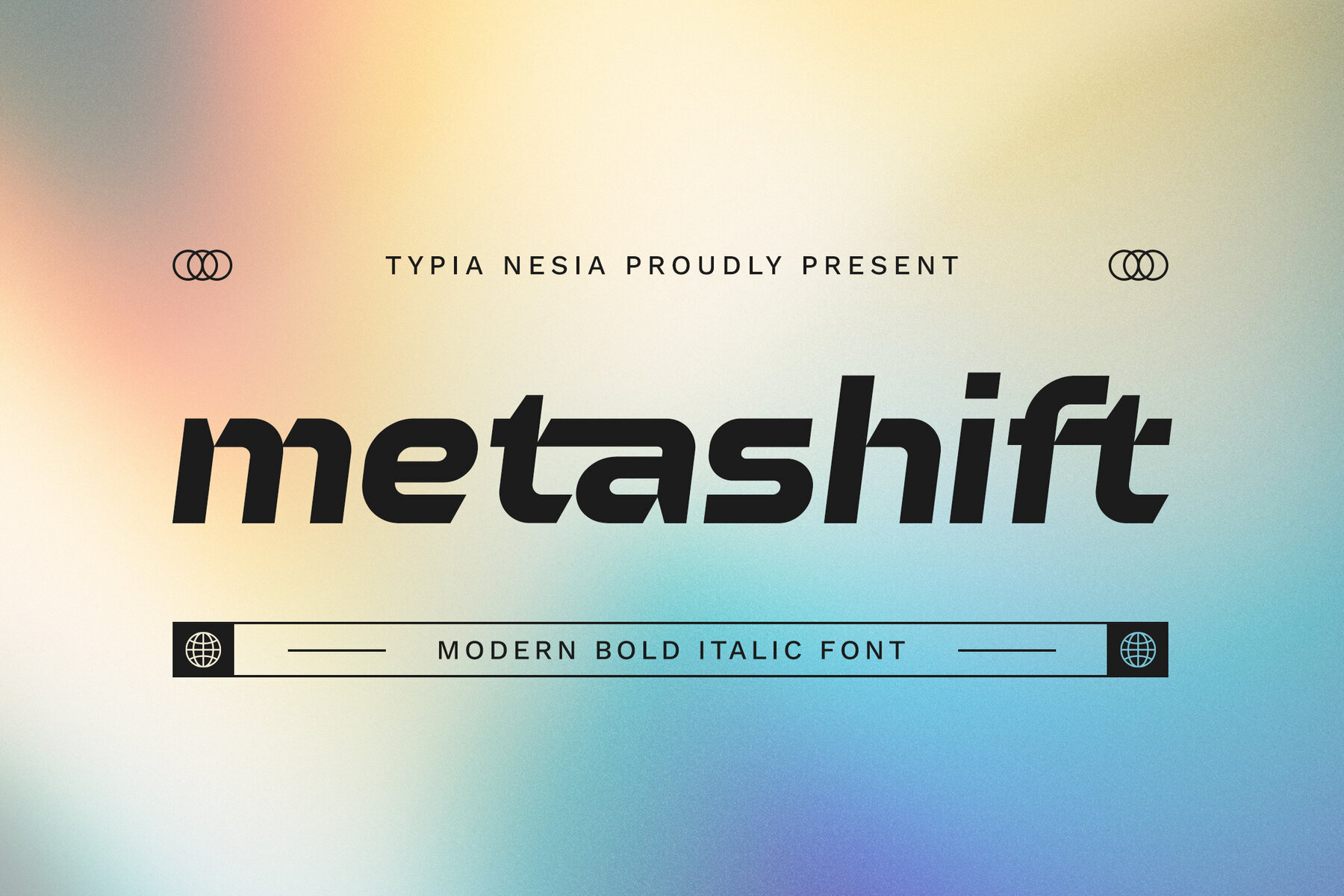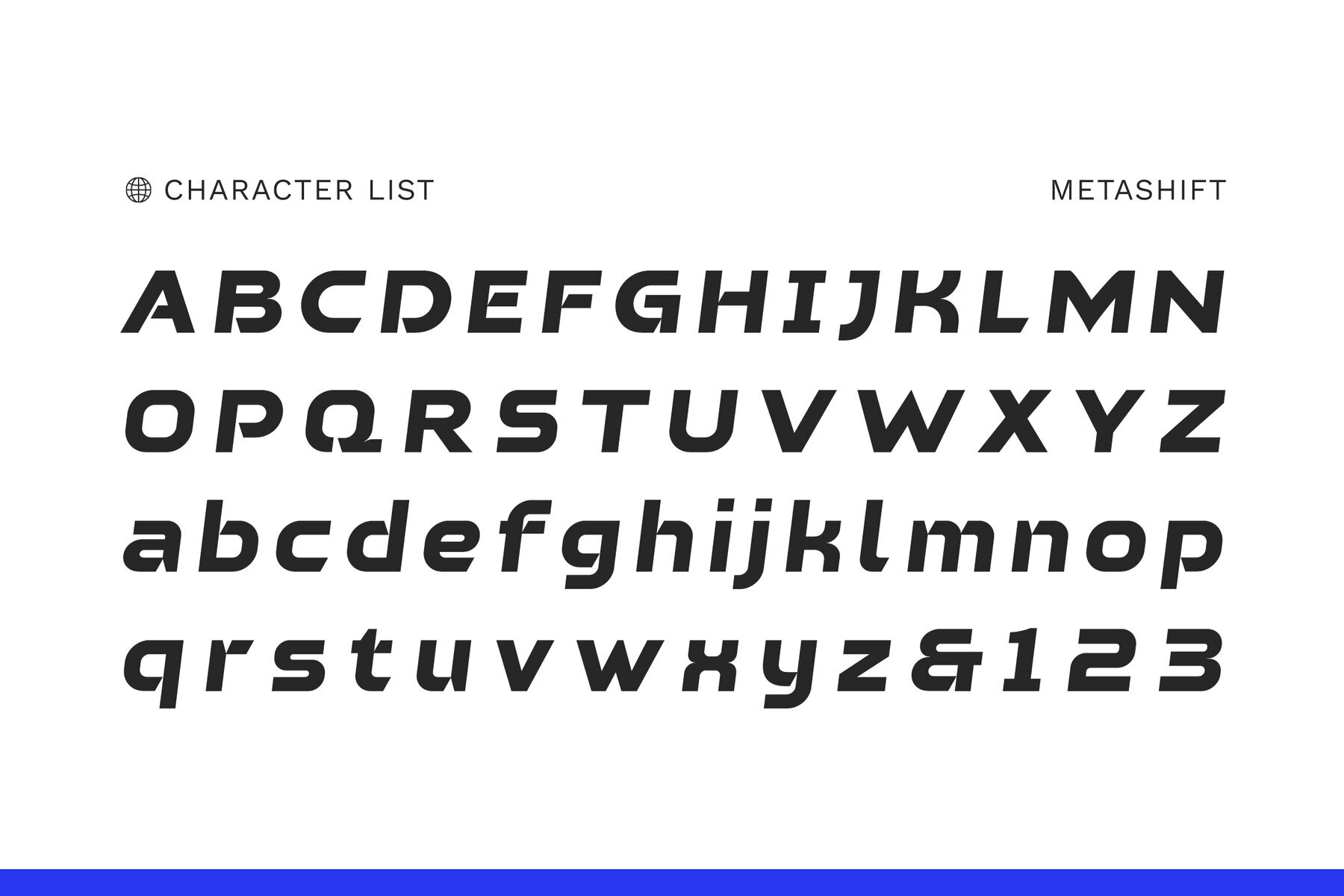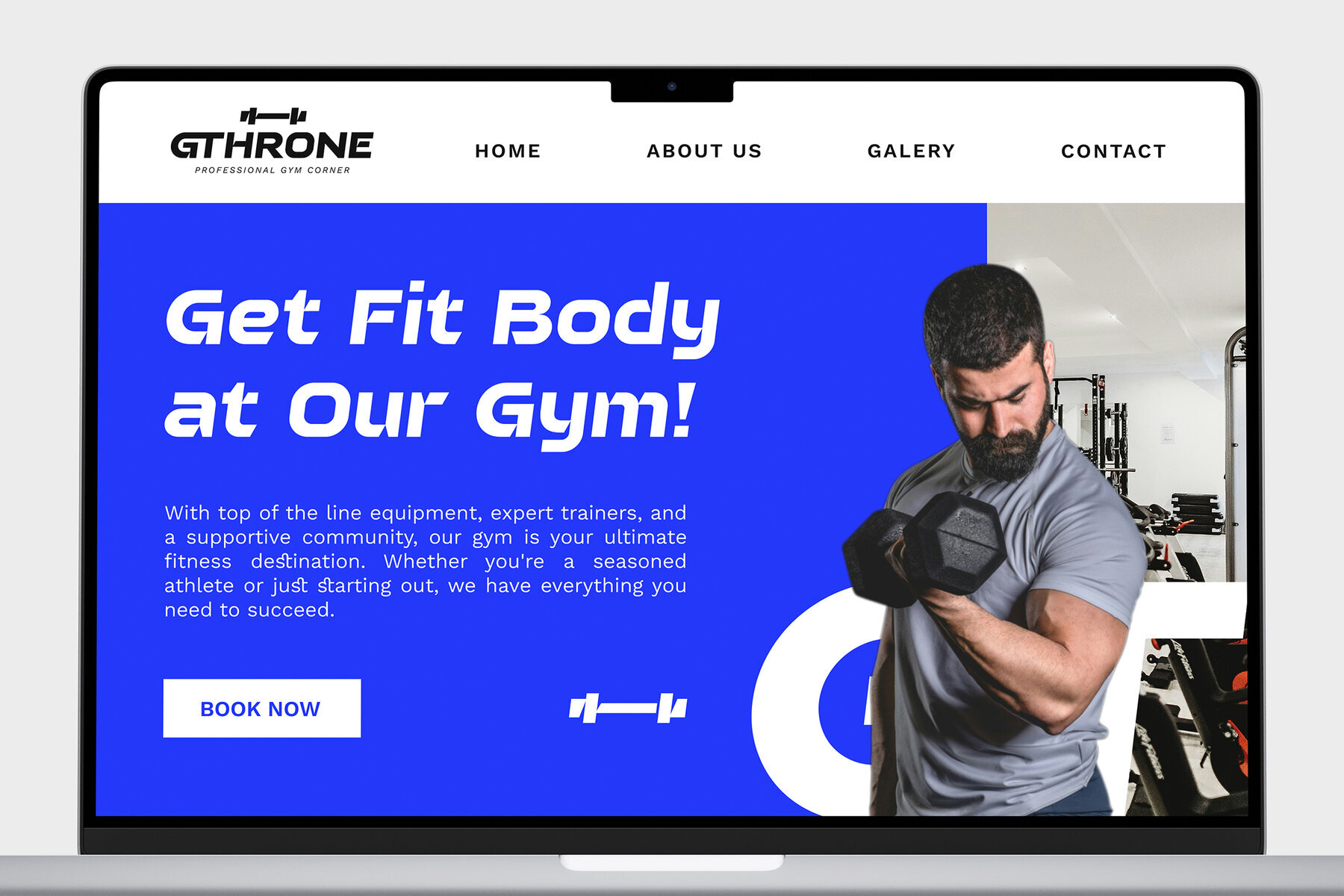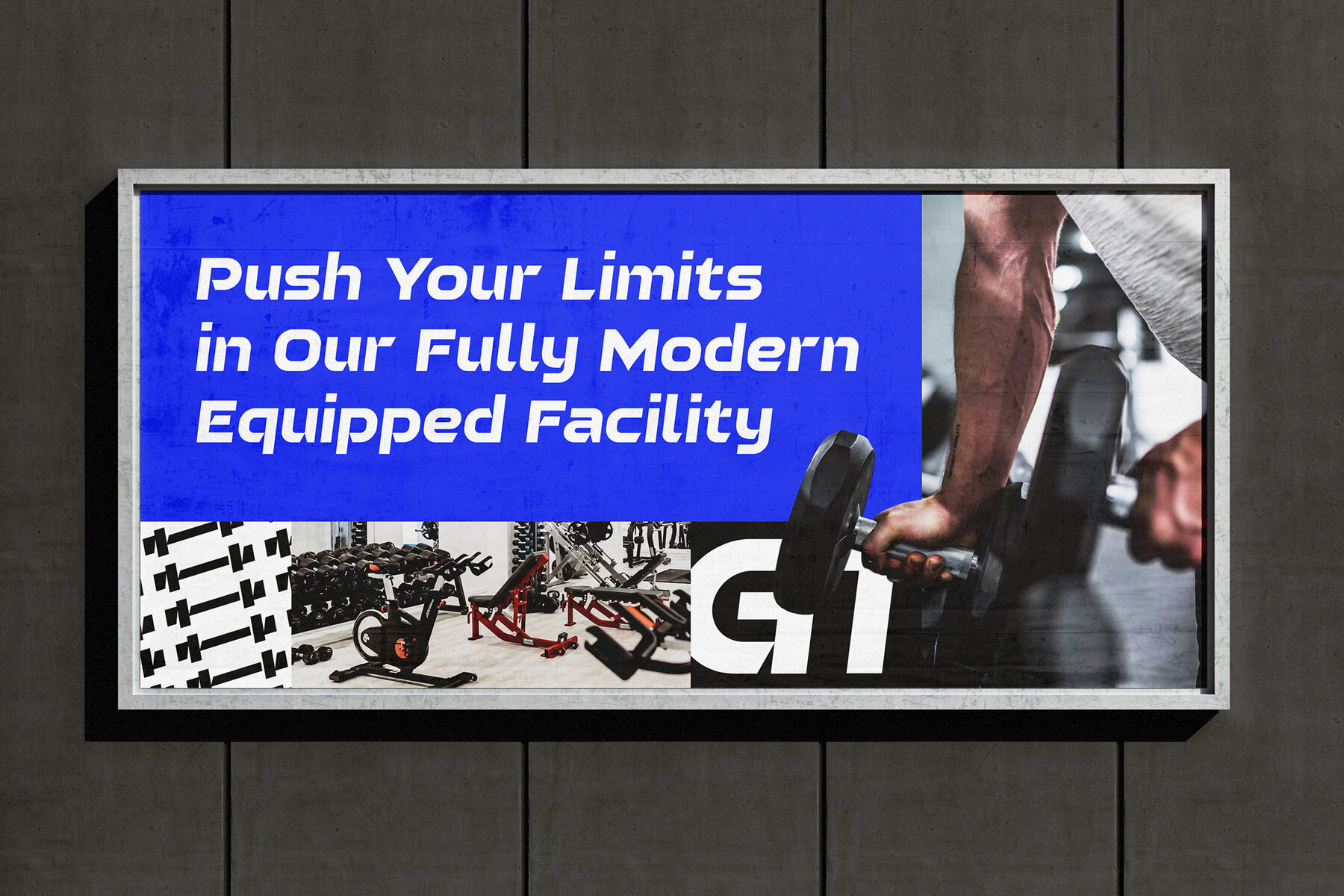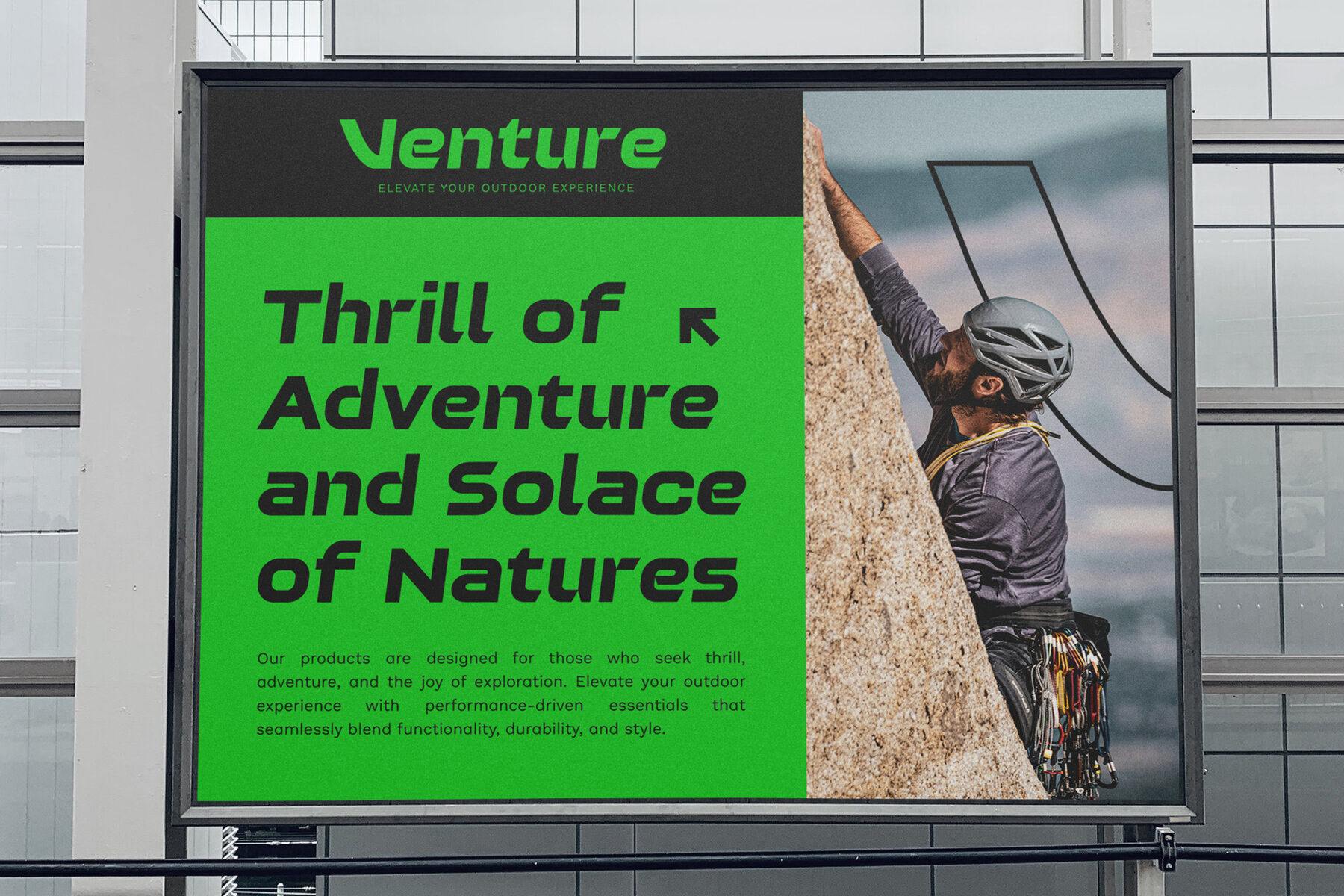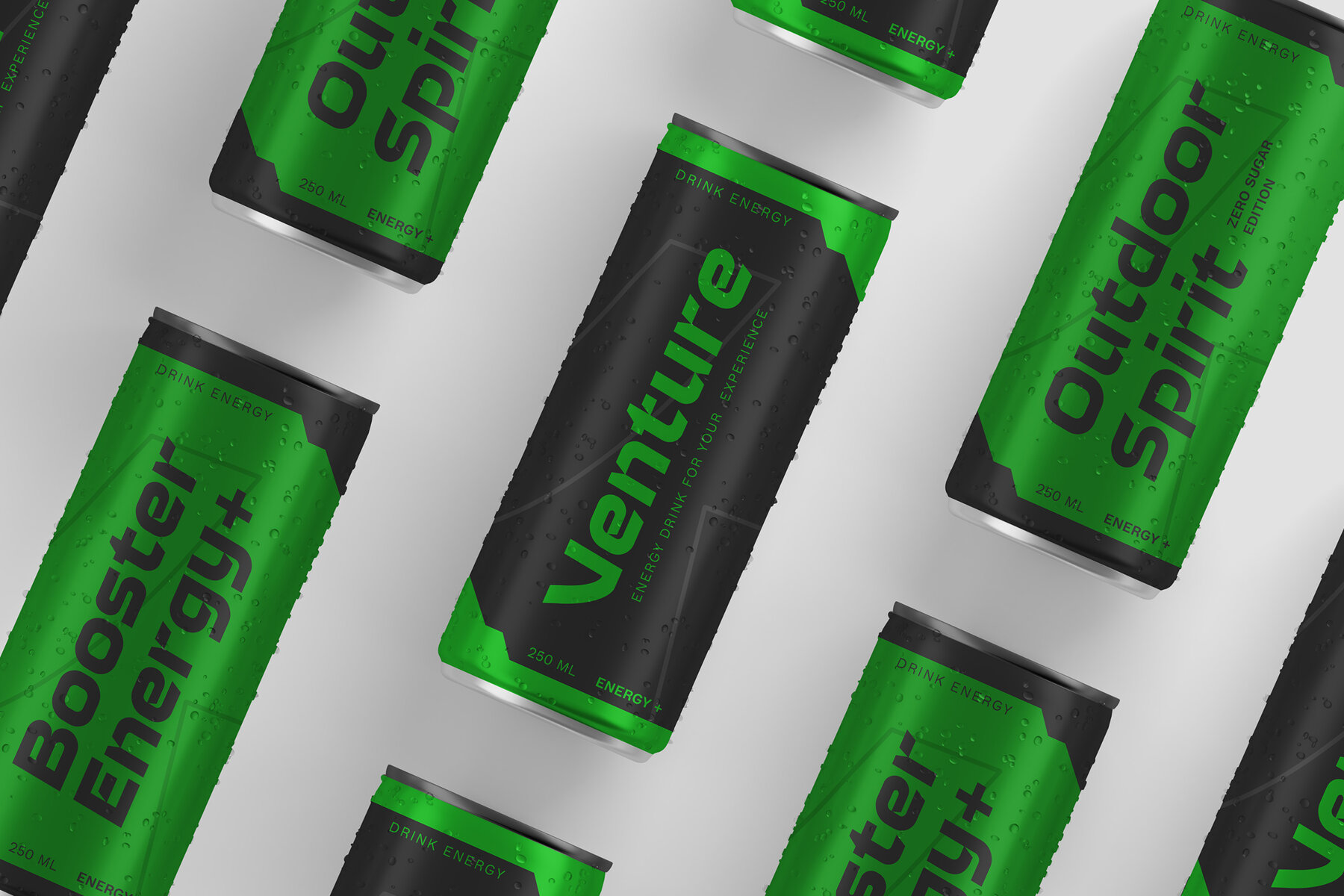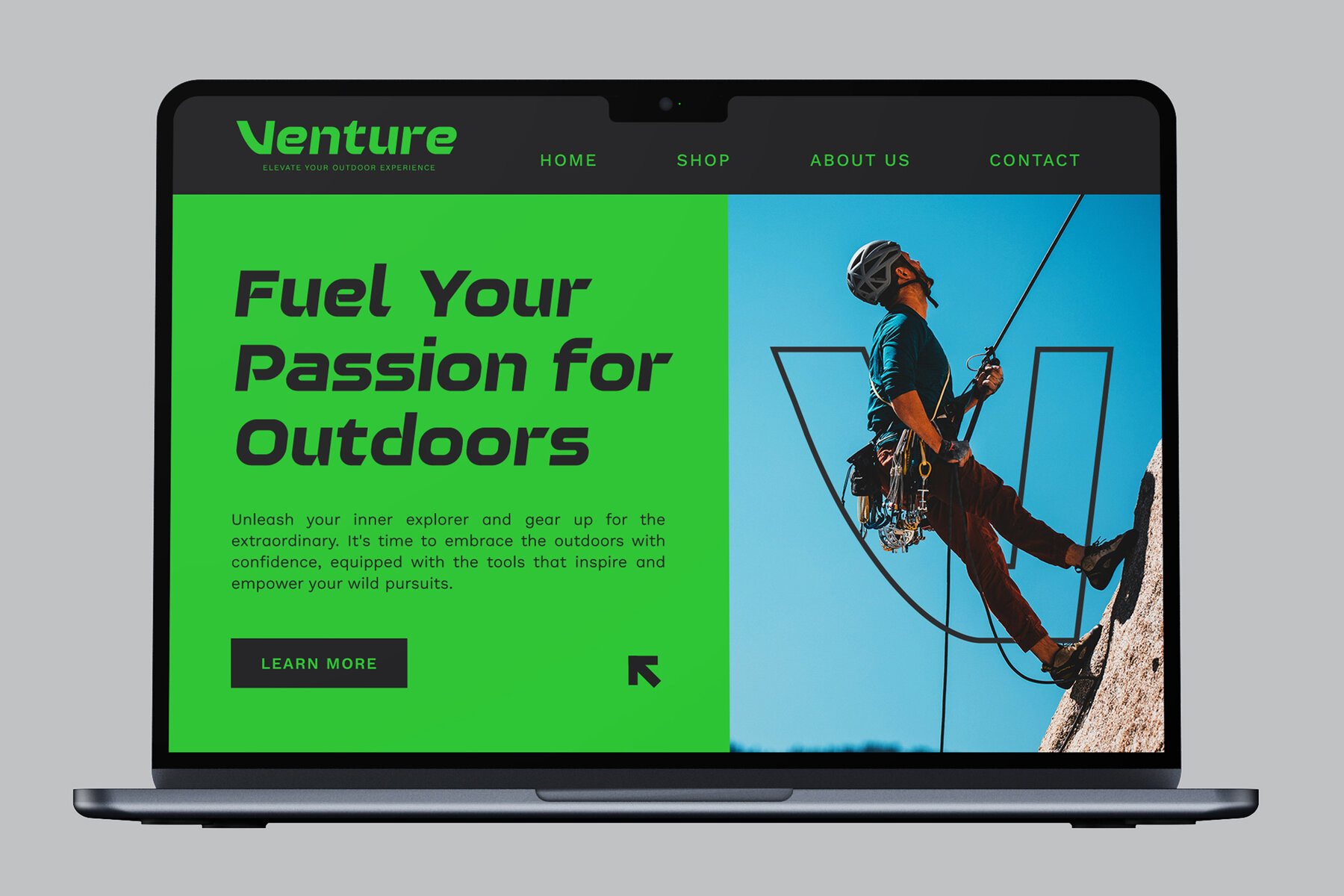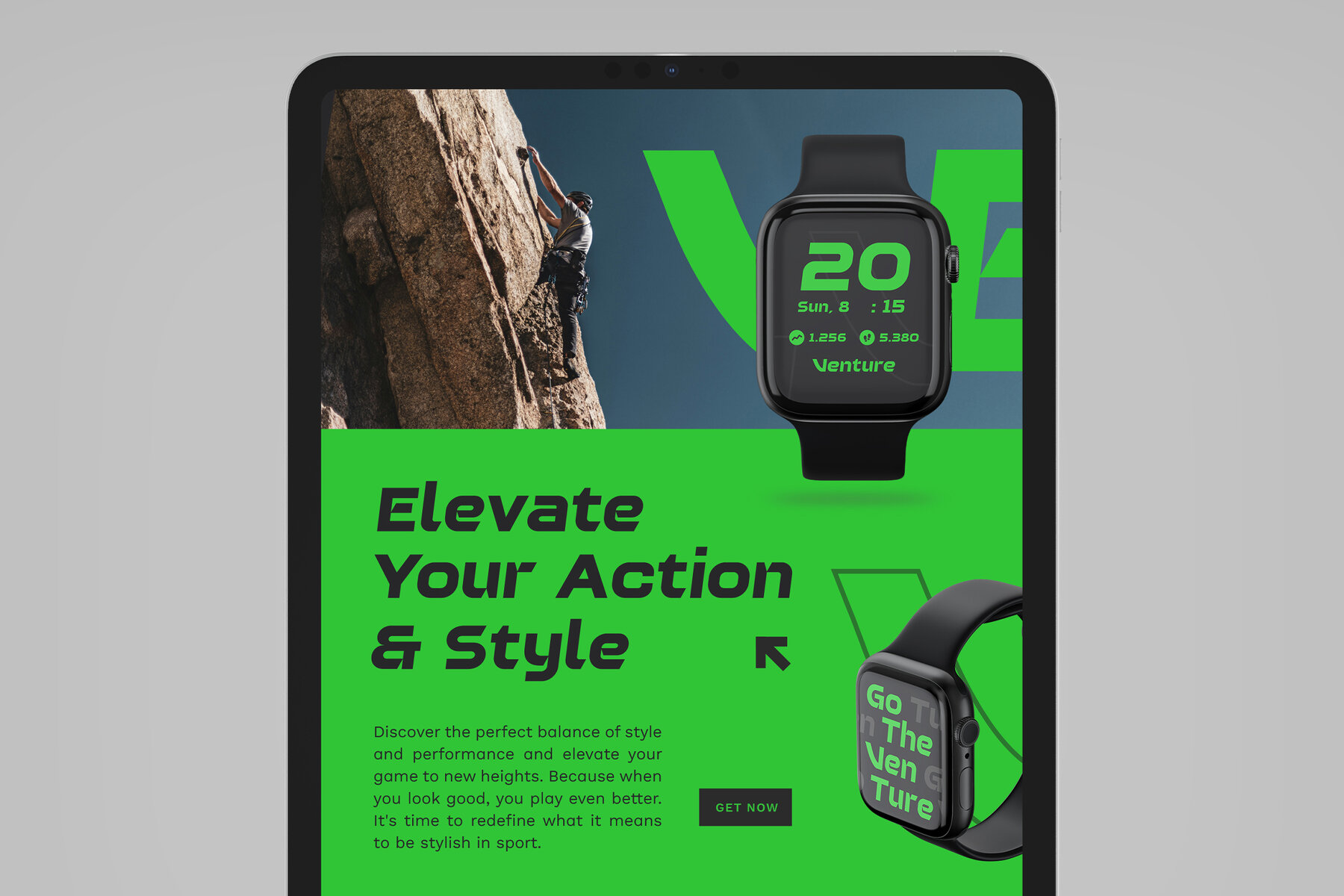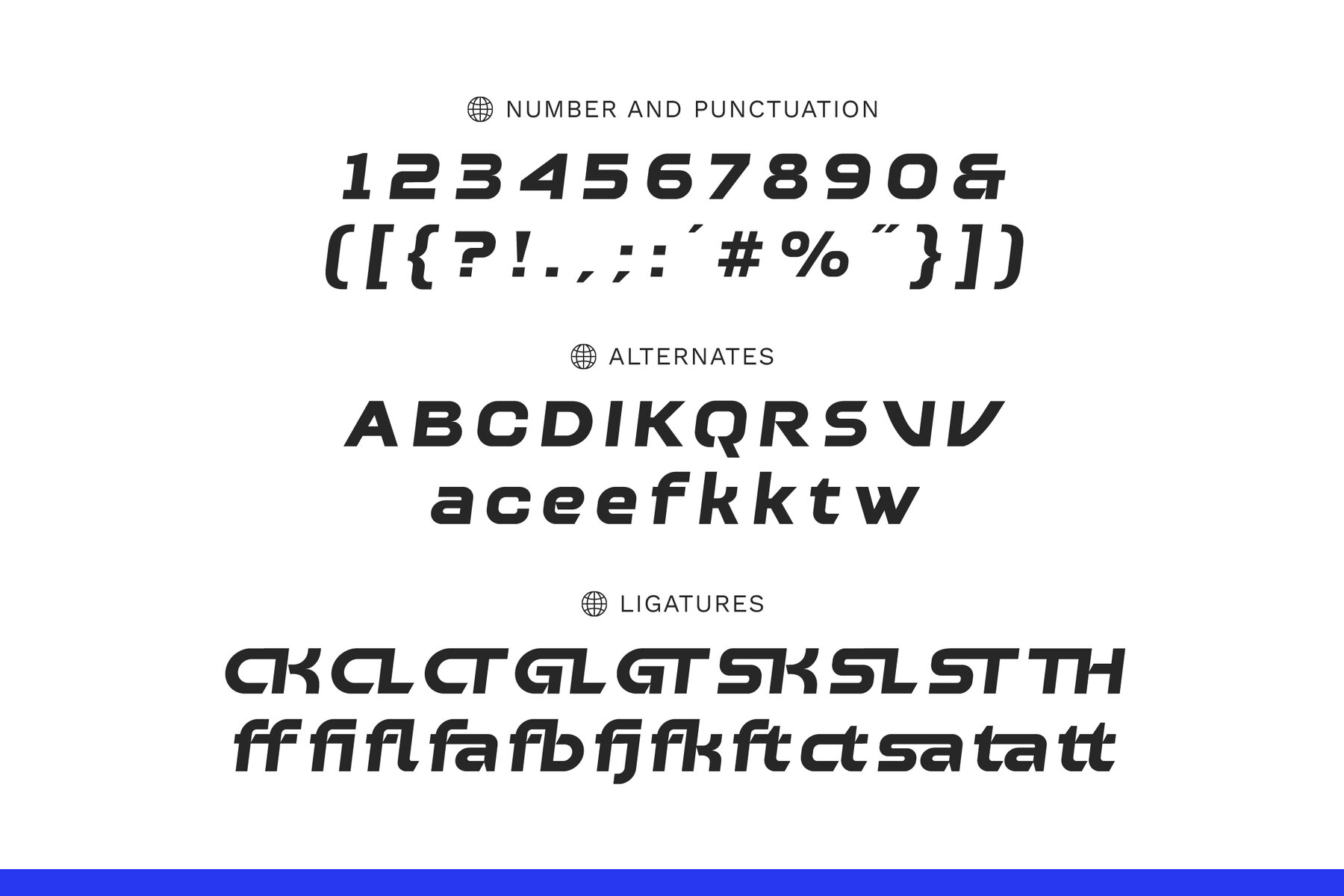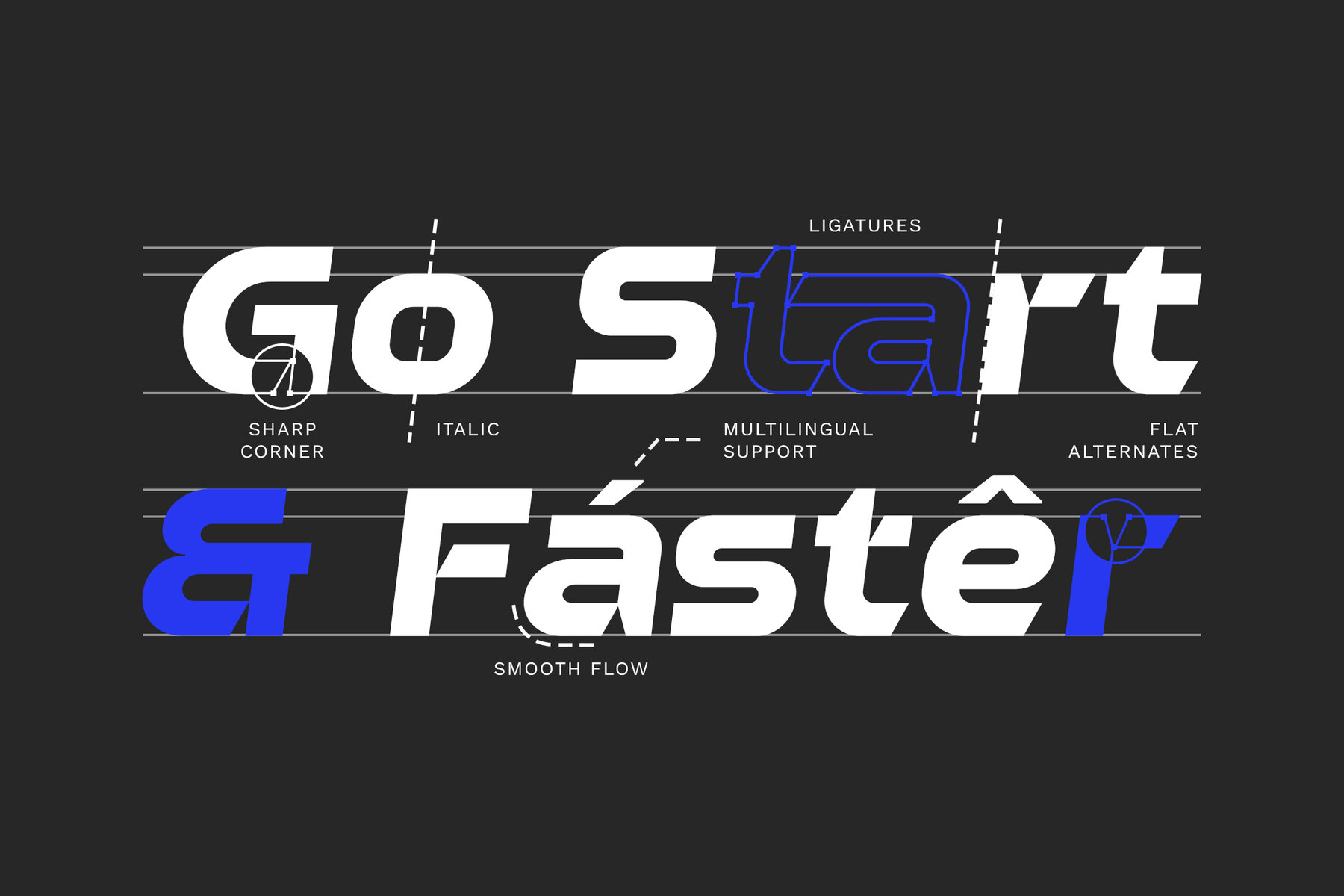
Metashift Font
Metashift Regular
Metashift is a modern bold italic font that embodies contemporary sophistication and versatility. Its bold and italic design brings a sense of dynamism and strenght to any project. Designed for various design such as headlines, branding, logo design, product packaging, apparel design, event promotion, gym signage and posters, digital marketing campaigns, sports broadcast graphics, blog and website headers, and vehicle decals and graphics, use Metashift adds a touch of modernity and style. Its bold italic style commands attention and communicates confidence and strength. Metashift Comes with Ligatures and alternates enhance the fluidity and diversity of its characters, allowing for creative expression and customization. With comprehensive support for uppercase and lowercase letters, punctuation marks, numerals, and multilingual characters, it caters to diverse design needs. Crafted with expertise in modern typography, Metashift reflects a mastery of design principles and contemporary aesthetics, ensuring that it meets the demands of various design projects.